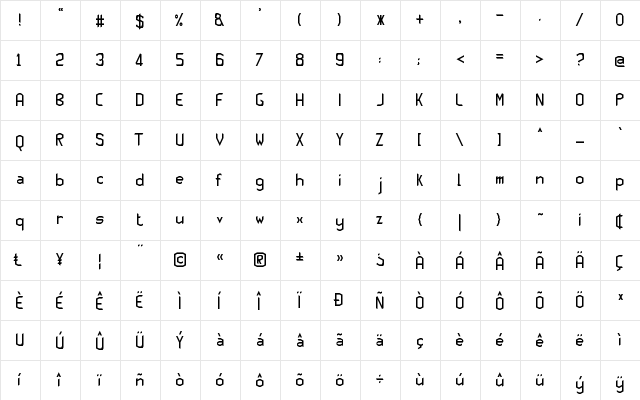
JD Familla Regular
| Designer | Jecko Development |
Design Context for JD Familla Typeface
JD Familla is a composed and adaptable typeface that performs quietly and consistently across a wide range of design contexts.